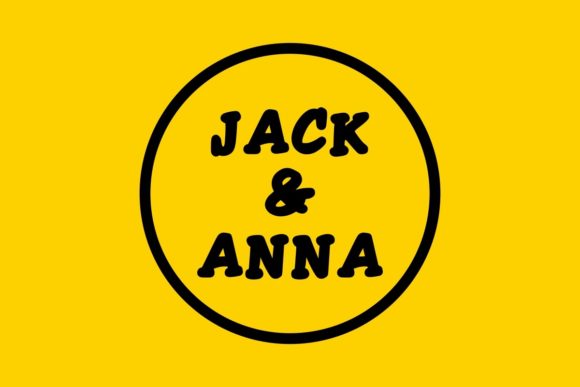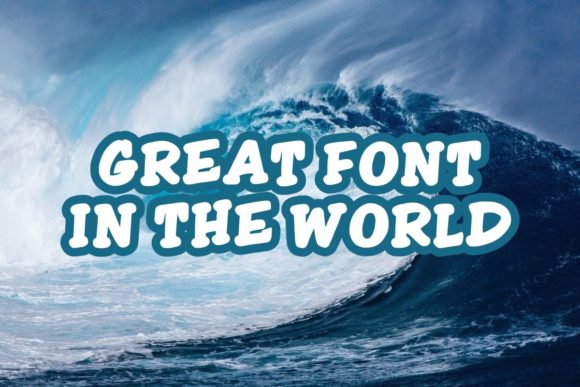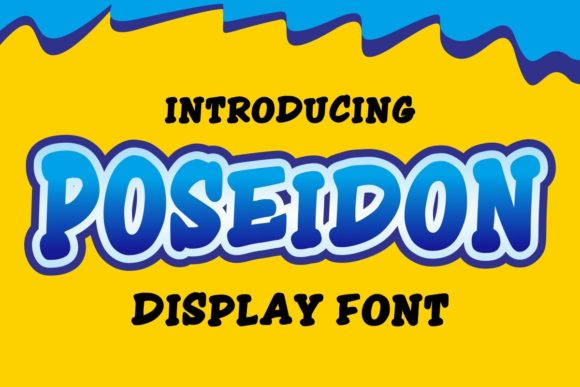
Introduction to Poseidon Font
Have you ever been in the middle of a creative project, staring at a blank canvas or screen, and suddenly, the perfect font pops into your mind? That’s exactly what happened to me when I stumbled upon the Poseidon Font. Its bold, thick letters and cool aesthetic immediately caught my attention, and I knew I had to share it with fellow designers and crafters.
The Poseidon Font is a high-quality design resource that can elevate any creation, whether it’s a digital design, a presentation, or even a handmade craft. With its transparent background, it’s the perfect addition to any project that requires a touch of sophistication. And the best part? It’s available for free download, making it an invaluable asset to any designer’s library.
As a designer, you know how important it is to have a reliable go-to font that can make your work stand out. The Poseidon Font is that font, and I’m excited to share its potential with you.
Key Features of Poseidon Font
- Transparent background, allowing for seamless integration with various design elements.
- Includes a wide range of characters, including Latin and Cyrillic scripts, making it a versatile design resource.
- Designed with a modern and sleek aesthetic, perfect for use in logos, branding, and other visual identity projects.
Honest Review: Poseidon Font
I recently came across the Poseidon Font and was excited to dive in and see what it had to offer. As a designer, I’m always on the lookout for high-quality design resources that can elevate my creative projects.
- ✨ Beautiful, modern design that’s perfect for creative projects
- ✨ Highly versatile and can be used for a variety of applications
- ✨ Clear, transparent background that makes it easy to work with
One thing to note is that the Poseidon Font may not be suitable for all design projects. The font is quite bold and striking, so it’s best used for projects that require a lot of visual impact.
- ⚠️ May not be suitable for projects that require a more subtle or conservative font style
- ⚠️ Some users may find the font a bit too flashy or overpowering
Overall, I’m really impressed with the Poseidon Font. It’s a great addition to my design arsenal and I’m excited to see how it can be used in future projects.
Tips for Getting the Most Out of Poseidon Font
To get the most out of the Poseidon Font, consider the following tips:
- Use the font on a transparent background for a clean and minimalist look.
- Experiment with different font sizes and styles to add visual interest to your project.
- Combine the Poseidon Font with other design elements, such as images and shapes, to create a unique and creative project.
The Poseidon Font is suitable for a wide range of creative projects, including:
- Graphic design projects, such as logos and business cards.
- Digital marketing materials, such as social media posts and email newsletters.
- Print design projects, such as posters and brochures.